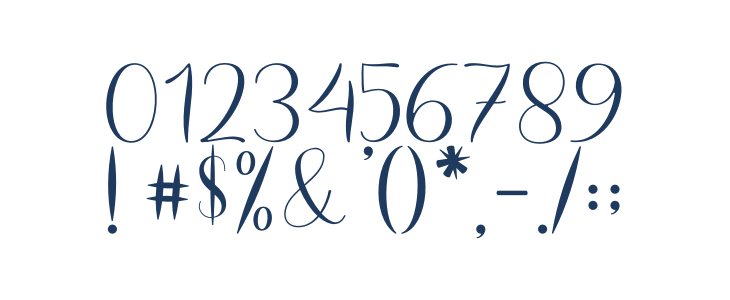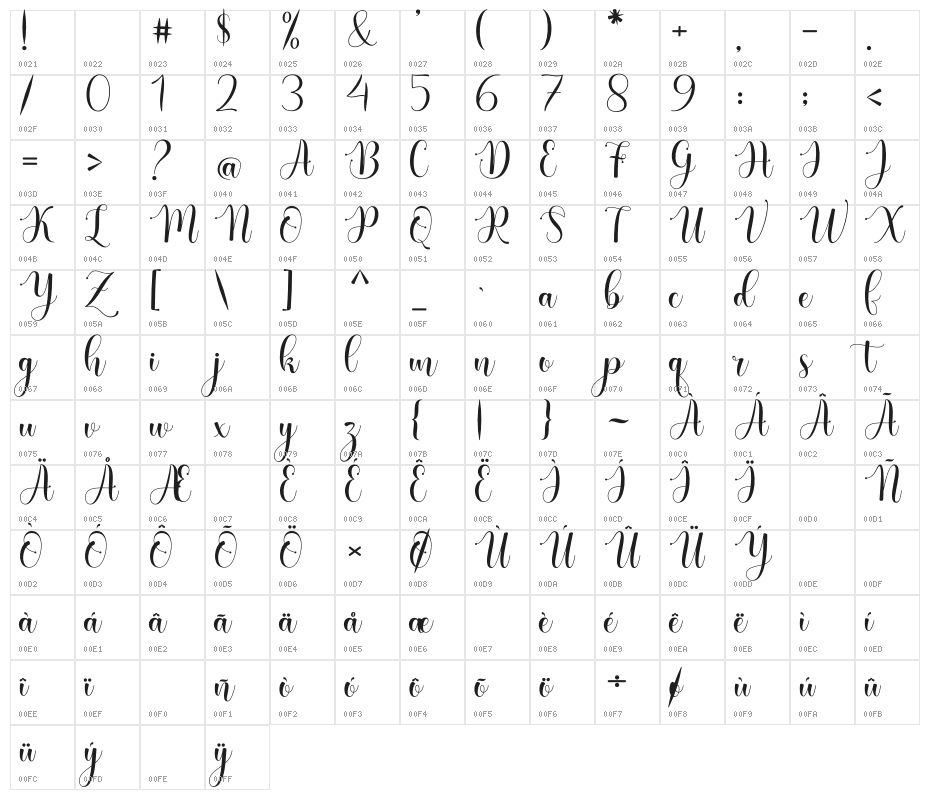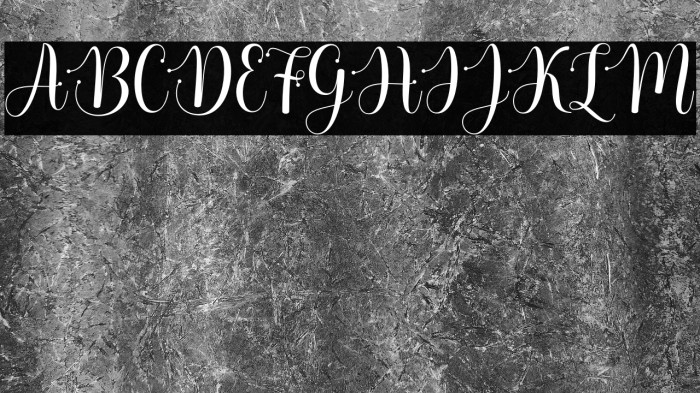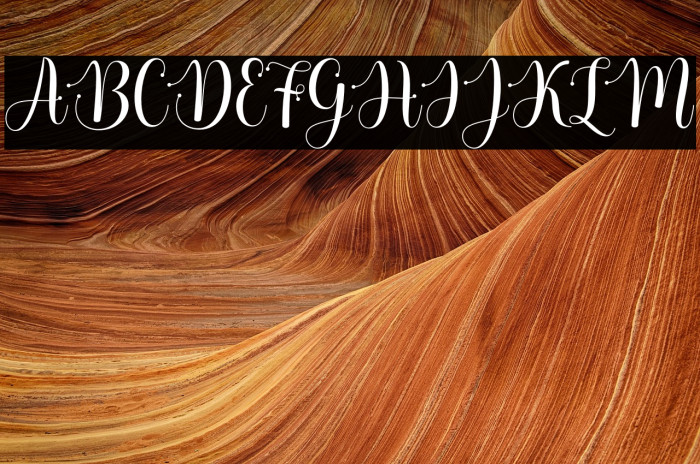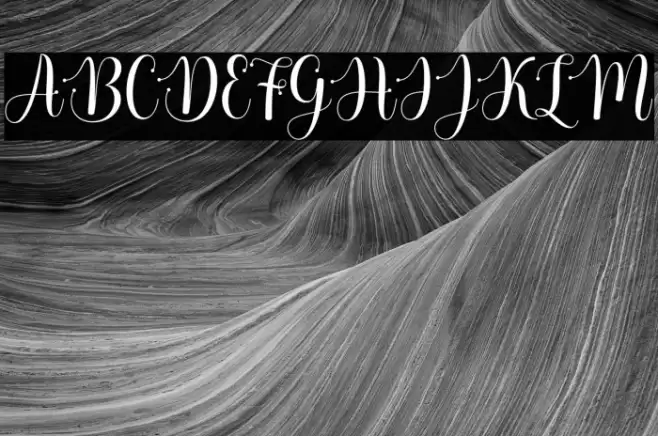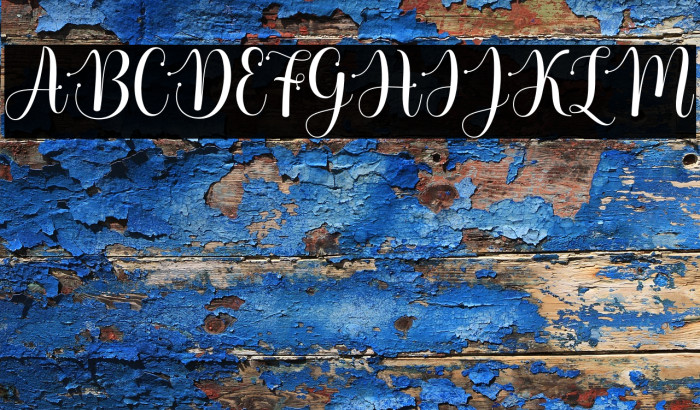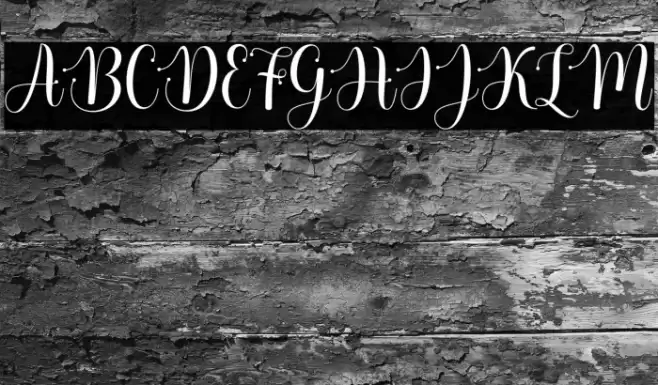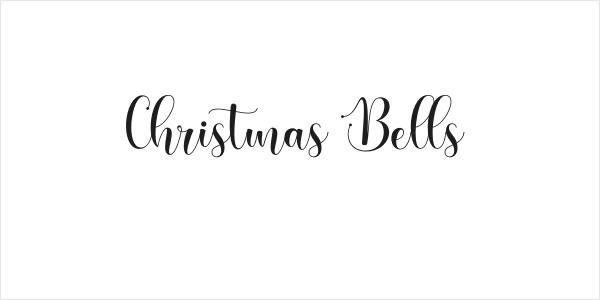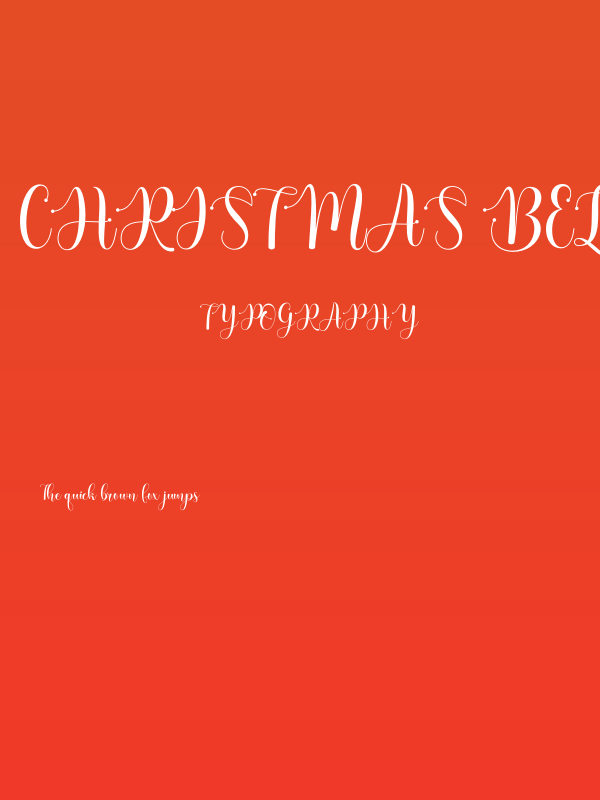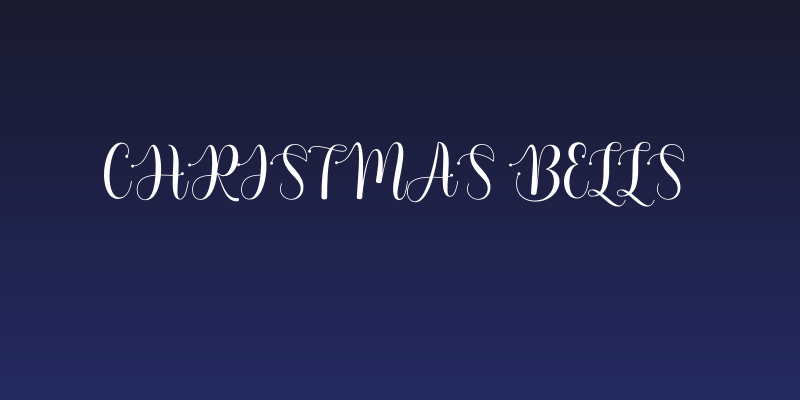
Christmas Bells Font
Christmas Bells Description
This font exudes a festive and elegant charm, characterized by its flowing, cursive script style. The letters are adorned with delicate swirls and loops, giving it a whimsical and decorative appearance. The uppercase letters are particularly ornate, with exaggerated flourishes that add a touch of sophistication. The lowercase letters maintain a consistent style, with smooth, rounded forms that complement the uppercase. The numerals and special characters are designed to match the overall aesthetic, ensuring a cohesive look. This font is perfect for creating a warm and inviting atmosphere, ideal for holiday-themed projects and designs.
| Use Case | Headlines, Invitations, Decorative text |
| Proposed Projects | Ideal for holiday cards, invitations, festive branding, and decorative signage. |